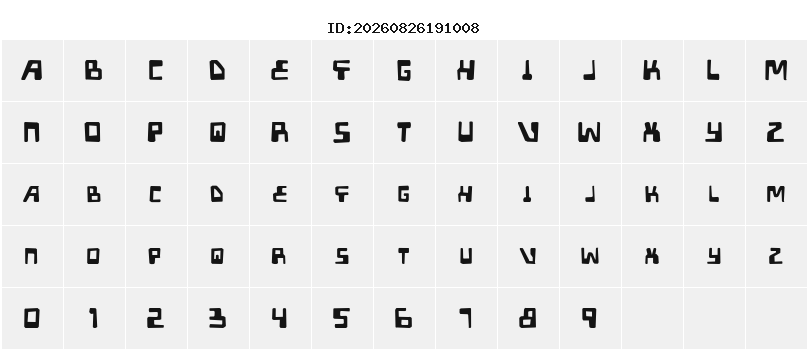
XPED Distressed Preview
• Font Name: XPED Distressed
• Font Style: Distressed
• Font ID: XPED
• Full Font Name: XPED Distressed
About XPED Distressed.ttf
XPED Distressed.ttf is a modern, elegant sans-serif font designed for ultimate readability and visual harmony. Perfect for branding, headlines, web design, and print materials.